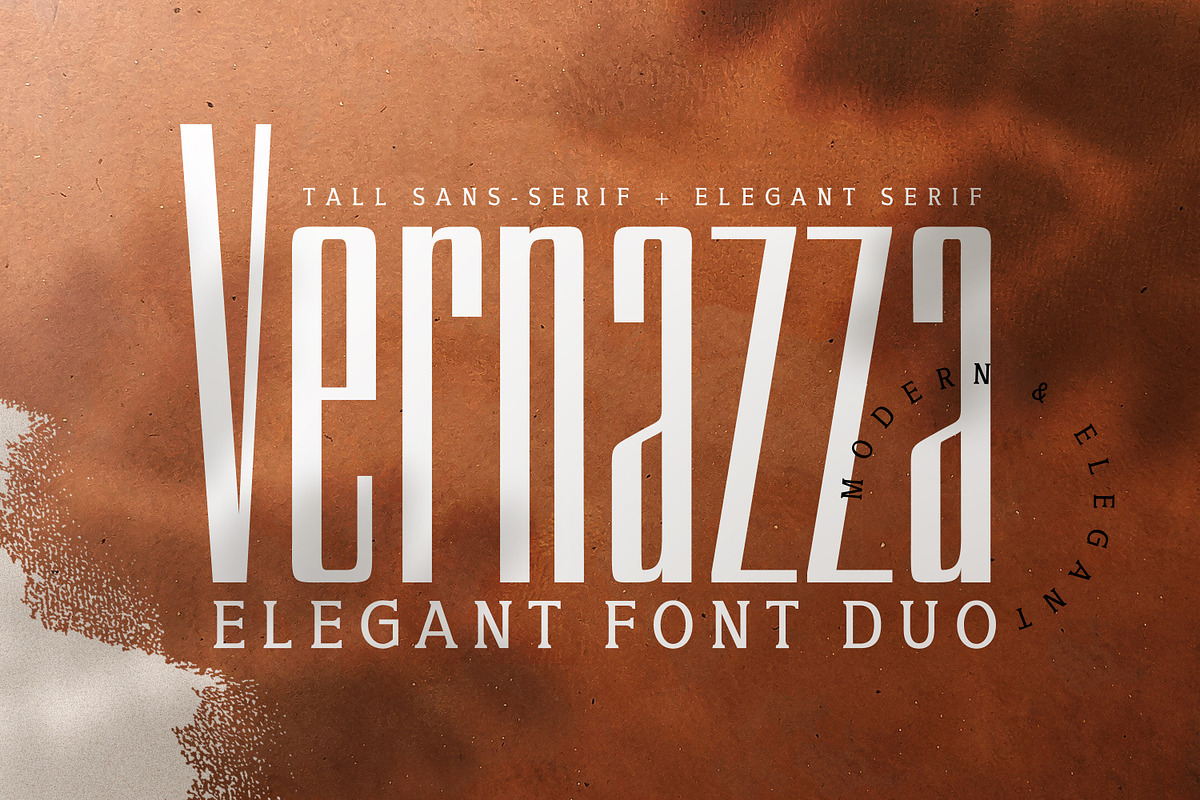
Vernazza Luxury Font Duo & Bonus
Vernazza Luxury Font is perfect for luxury resort branding, high-end hospitality signage, premium wine labels, sophisticated fashion campaigns, exclusive yacht club materials, luxury travel agencies, upscale Italian restaurants, prestigious event invitations, luxury villa marketing, and Mediterranean luxury brands.
Vernazza Luxury Font is exciting because it perfectly captures the sophisticated elegance and timeless beauty of the Italian Riviera, creating a typeface that embodies Mediterranean luxury, coastal sophistication, and European refinement. This font brings continental elegance and seaside sophistication to any project, making it ideal for luxury brands that want to convey exclusivity, heritage, and the effortless elegance of Italian coastal living. Its refined proportions and luxury details create an atmosphere of Mediterranean glamour that resonates with discerning audiences who appreciate authentic luxury experiences.
Vernazza Luxury Font family includes light, regular, medium, bold, and black weights, each available in roman and italic styles with luxury ligatures and Mediterranean ornaments, providing designers with comprehensive tools for creating sophisticated European typography and exclusive luxury brand experiences.
This exquisite luxury typeface combines Italian design heritage with contemporary sophistication, making Vernazza Luxury Font Free Download a premium choice for projects celebrating Mediterranean elegance and European luxury culture. The font's meticulously crafted letterforms feature refined details and coastal elegance that evoke the exclusive charm of Italian Riviera destinations and luxury Mediterranean lifestyle.
Whether you're designing luxury hospitality branding, exclusive resort materials, or premium Mediterranean products, Vernazza Luxury Font delivers unmatched coastal sophistication and European elegance. The font excels in both intimate luxury applications and grand resort environments where Mediterranean charm and exclusive appeal create unforgettable experiences.
Luxury hospitality professionals choose Vernazza Luxury Font for its ability to instantly communicate Mediterranean sophistication and European luxury while creating emotional connections with affluent travelers seeking authentic Italian elegance. The font's coastal character makes it particularly effective for luxury hotels, exclusive resorts, and premium Mediterranean brands.
Each character reflects the refined artistry of Italian craftsmanship, featuring elegant proportions and luxury details that create typography worthy of the most exclusive Mediterranean destinations and sophisticated European luxury experiences.